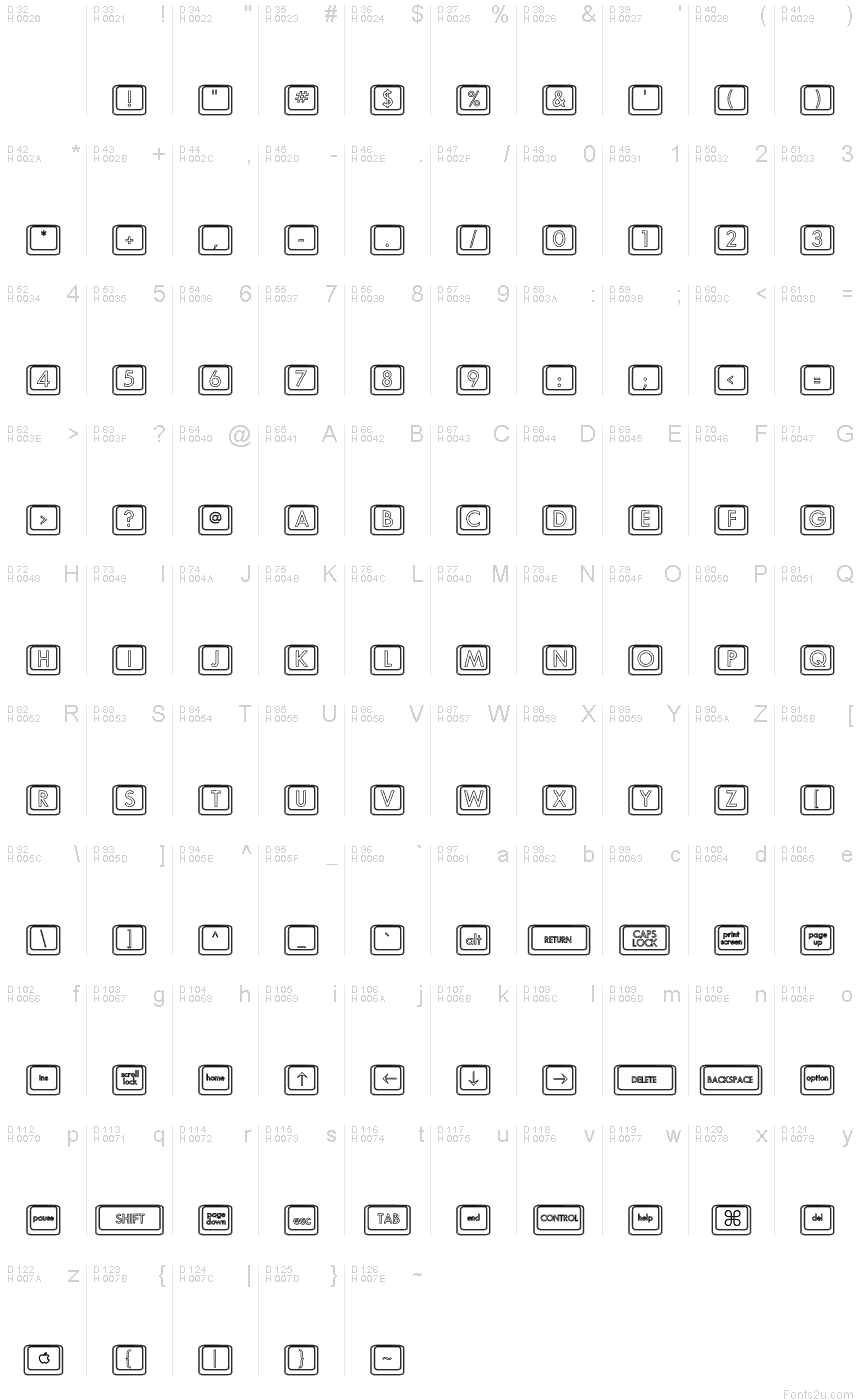
Keyboard KeysHo Hollow
Keyboard Keys Ho Hollow font by Alltype is a free decorative display typeface that turns every character into a chunky retro keycap. Each glyph sits inside a pillowy, double-outlined square that feels like an old mechanical keyboard-clicky, plastic, and a little nostalgic. The hollow interiors keep the look airy, so even a line of keys doesn’t feel heavy or cramped.
Using Keyboard Keys Ho Hollow instantly signals “interface” and “interaction,” so it shines on tech posters, coding-event flyers, video overlays, game menus, tutorial graphics, and playful UX mockups. This free font works best at larger sizes where the layered outlines and key shapes can breathe. Pair it with a clean geometric sans for body text, and let the keycap forms handle your headings, buttons, and callouts.